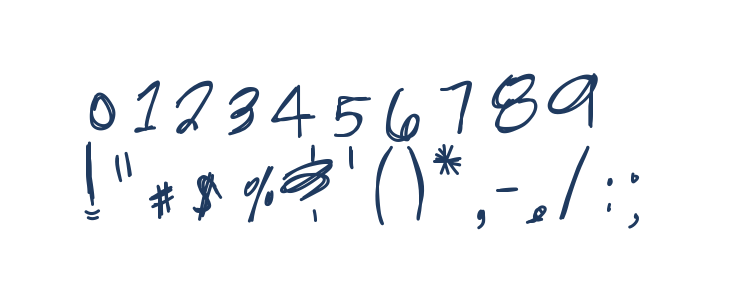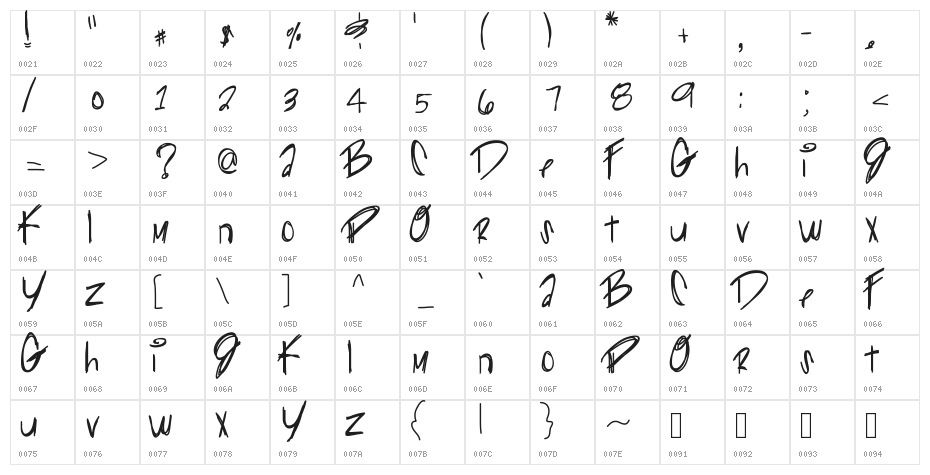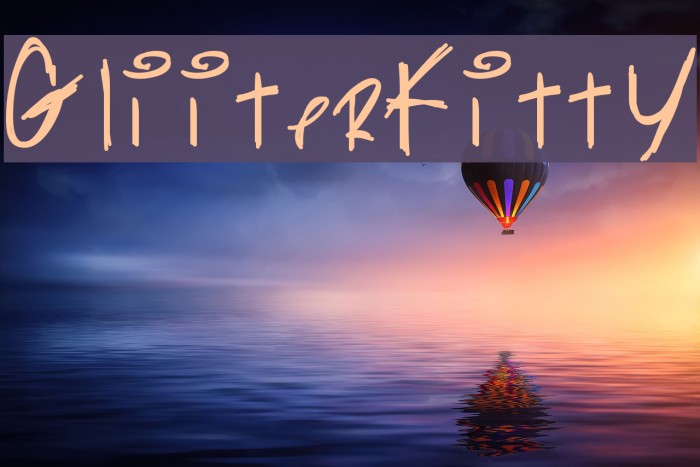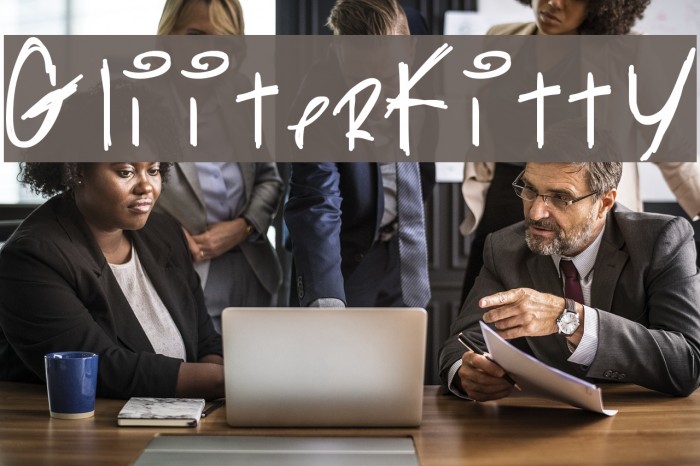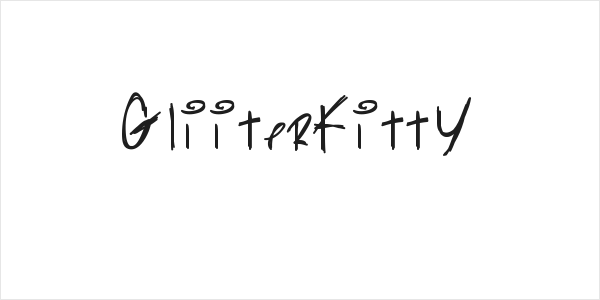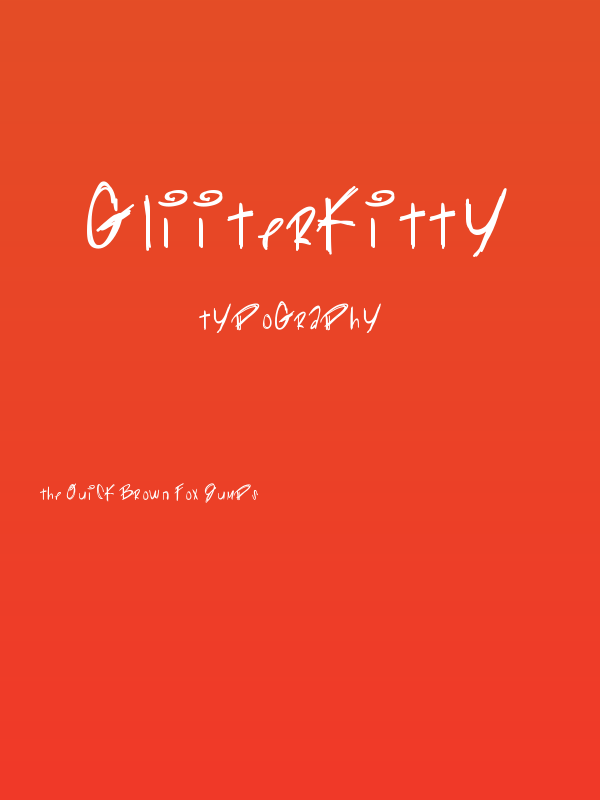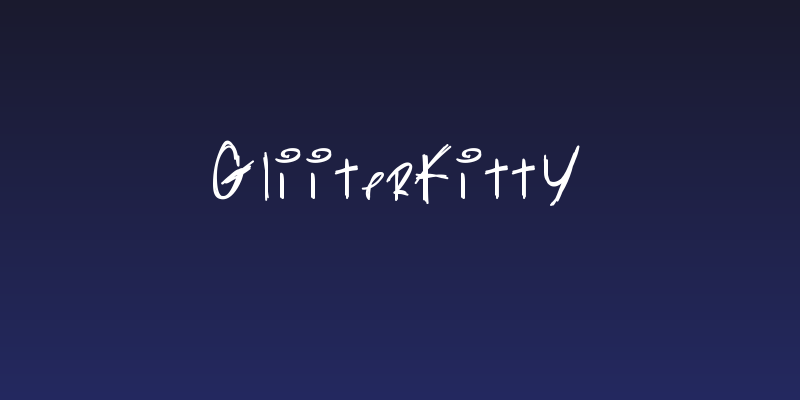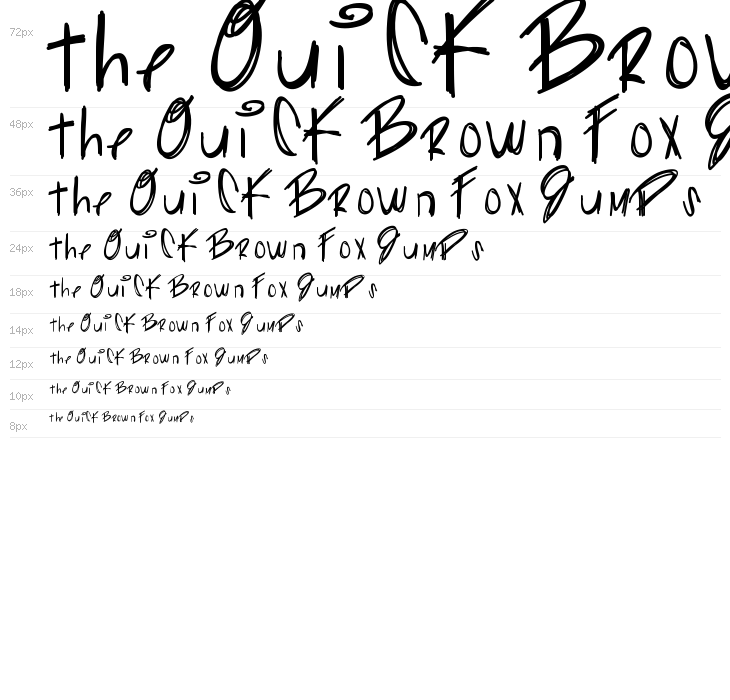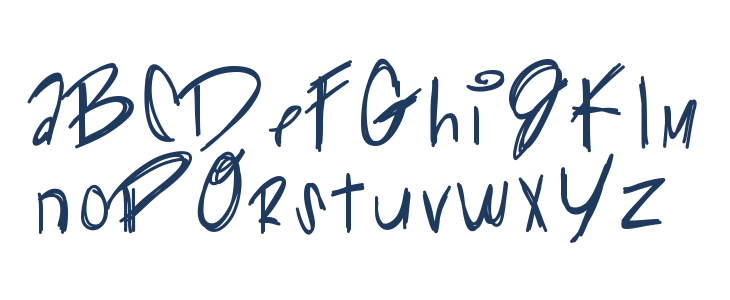
GliiterKitty Font
GliiterKitty Description
This font features a playful and energetic handwritten style with a casual, informal appearance. The letters are bold and slightly irregular, giving them a dynamic and lively feel. The strokes are thick and varied, adding a sense of movement and spontaneity. The characters are closely spaced, enhancing the overall compact look. The font includes both uppercase and lowercase letters, numbers, and a range of special characters, making it versatile for various design needs. Its unique style is perfect for projects that require a personal touch or a fun, youthful vibe.
| Overall Style | Playful, Energetic, Casual |
| Use Case | Logos, Headlines, Posters |
| Proposed Projects | Ideal for greeting cards, playful branding, children's books, and social media graphics. |